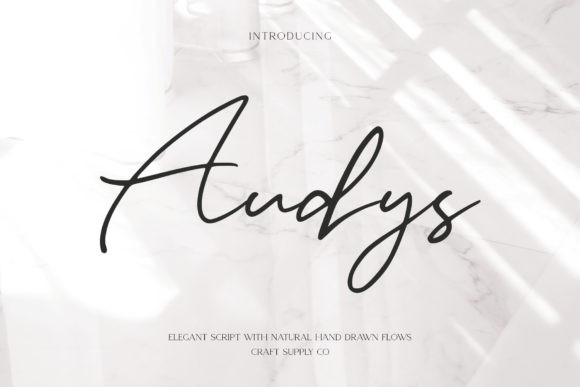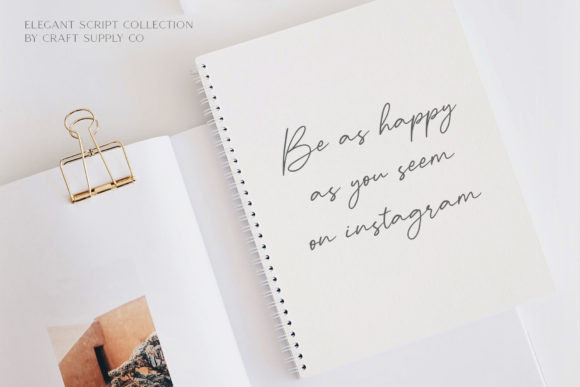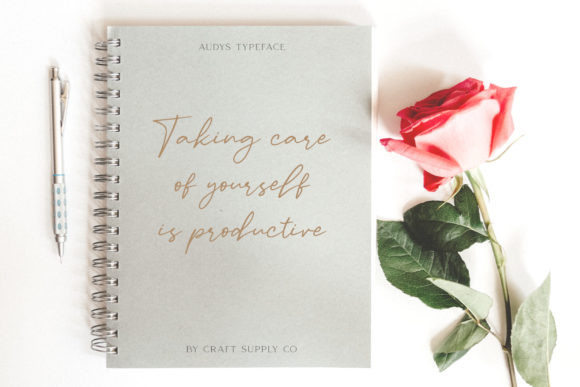
Audys Font
Audys is a delicate and elegant handwritten font. Its distinct and well-rounded letters make this font a masterpiece. Fall in love with its incredibly versatile style and use it to create spectacular designs!